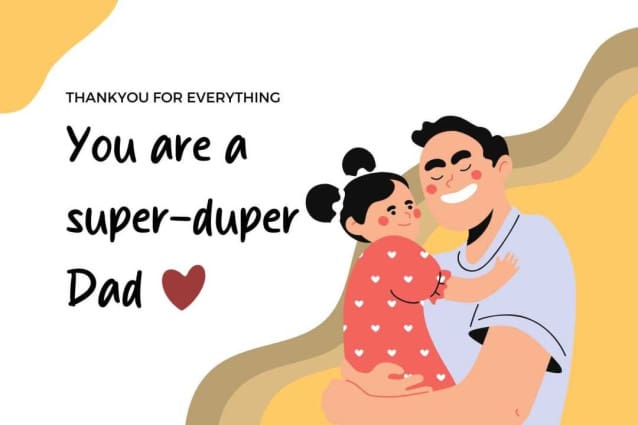
Bring Me Stick Font
Bring Me Stick Font is a classic and simple handwritten script, created in a random and free style. It is suitable for logotype, headline font, in corporate identity, brand identity, apparel industry, poster, music, movie, game, magazine, book, comic, cartoon, YouTube, Instagram, website, or any of your creative design projects.